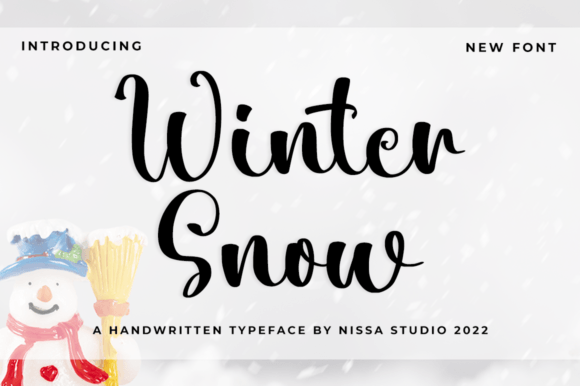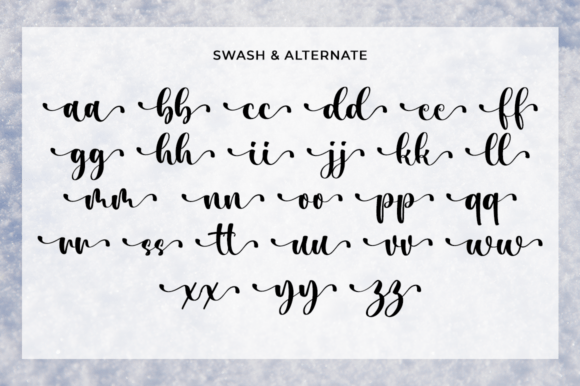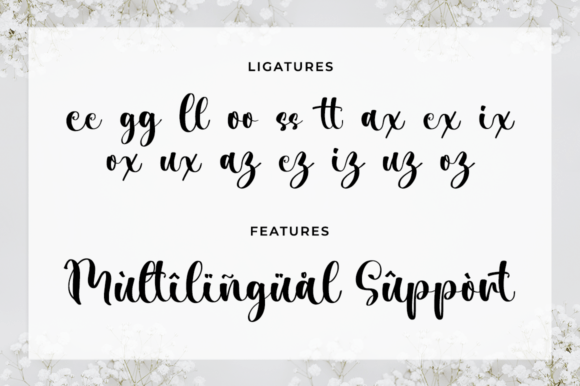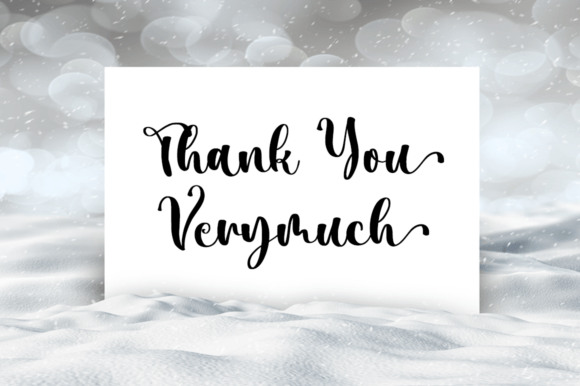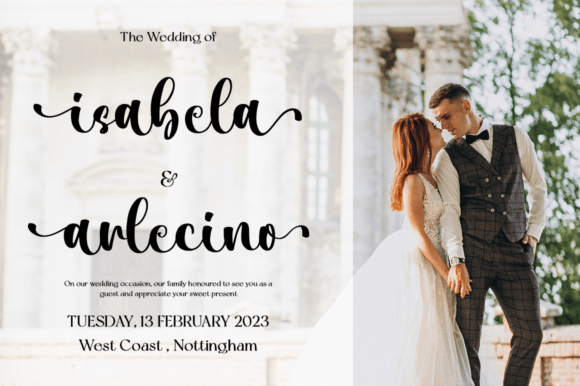
About Winter Snow Font
A Romantic Script with a Modern Twist
Bring elegance and warmth to your designs with Winter Snow Font download. This beautifully handwritten script blends modern style with timeless charm, making it ideal for a wide range of creative projects.
Perfect for Any Occasion
Whether you’re designing holiday greeting cards, romantic invitations, or elegant headlines, Winter Snow adds a touch of magic. Its smooth curves and soft flow make it perfect for:
Greeting cards and wedding invitations
Social media graphics and quotes
Branding and logo design
Product packaging and blog headers
No matter the occasion, Winter Snow Font download brings a cozy, refined feel to your work.
Elegant & Easy to Use
Crafted with care, this font offers both style and usability. It’s fully PUA encoded, which means you can easily access all the beautiful glyphs, swashes, and alternate characters—no special software needed.
Designed to Inspire
The romantic, handwritten aesthetic of Winter Snow turns any simple phrase into a heartfelt message. If you’re working on a project that needs personality, warmth, and a touch of sophistication, this typeface is your perfect match.